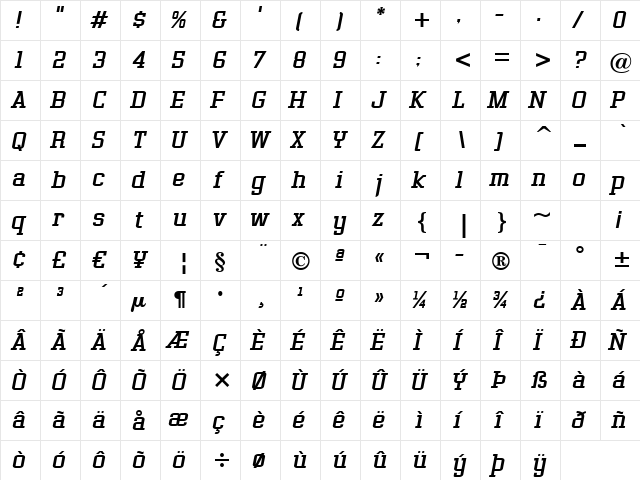
Gasoline Serif BTN Oblique
Design Context for Gasoline Serif BTN Typeface
Gasoline Serif BTN brings classic typographic sensibility to the table — its serifs and measured letterforms reflect centuries of print heritage. The dynamic lean of this cut emphasises speed and emphasis in any layout.
Pro Tip: Use Gasoline Serif BTN for editorial body copy and considered headline work. Pair with a neutral sans for UI elements or captions to create a classic hierarchy.